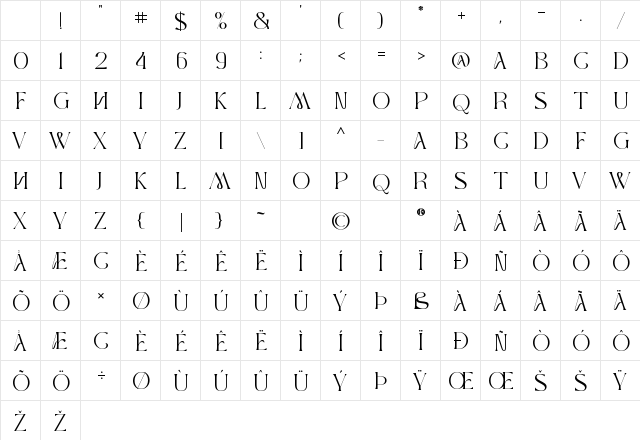
MOXA Bestine Regular Free Font
MOXA Bestine Regular
Designer: Toni Studio
Design Context for MOXA Bestine
MOXA Bestine is a composed and adaptable typeface that performs quietly and consistently across a wide range of design contexts.